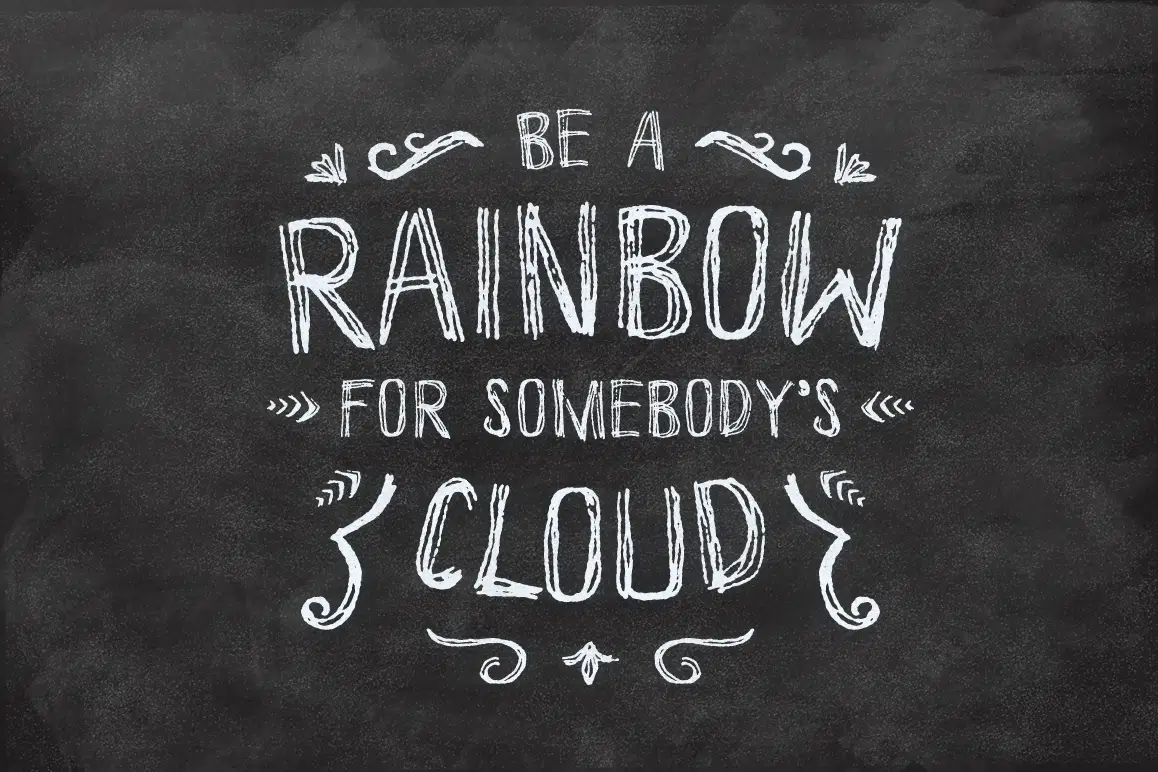
Vanderchalk typeface is a another handmade display font. This is good for projects like a menuboards cafe, background photoboots wedding, t-shirt, labels, posters,etc and a touch of bonus vector that allows you to mix and match pairs of ornaments to fit your design